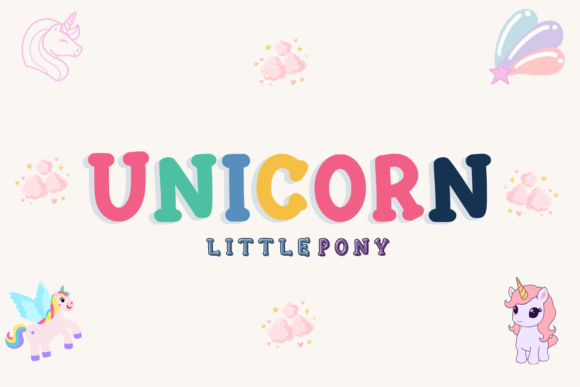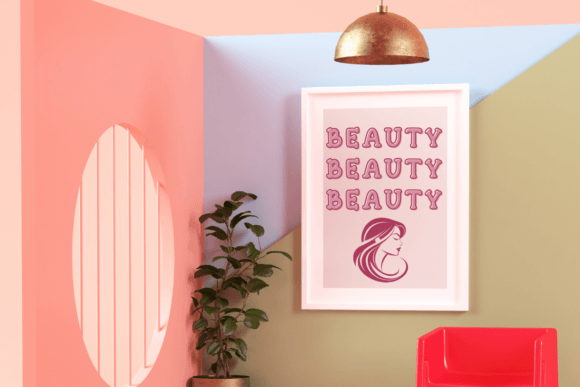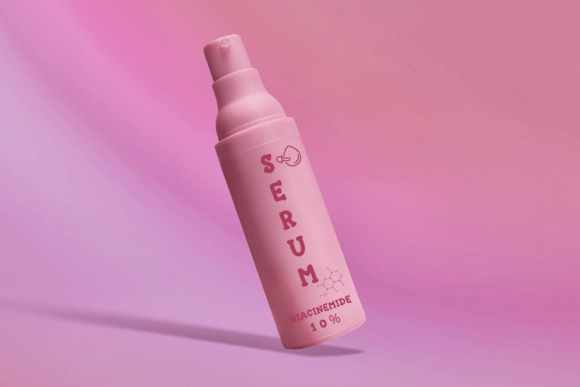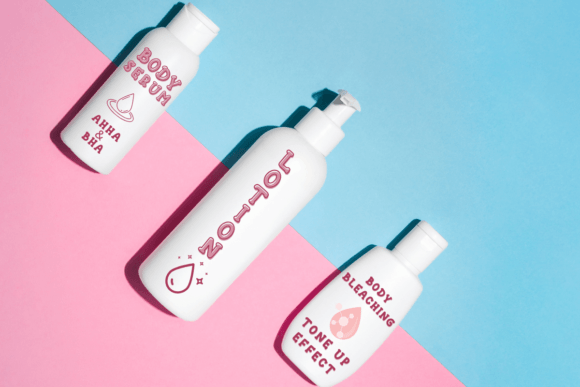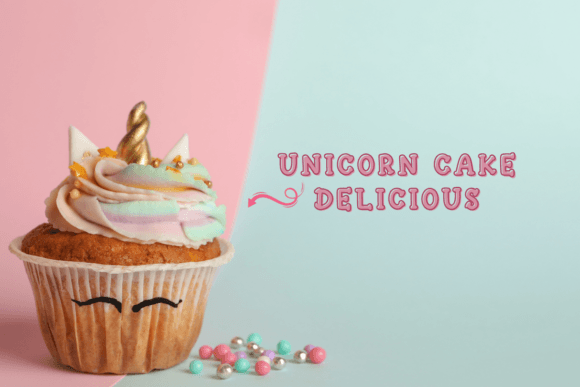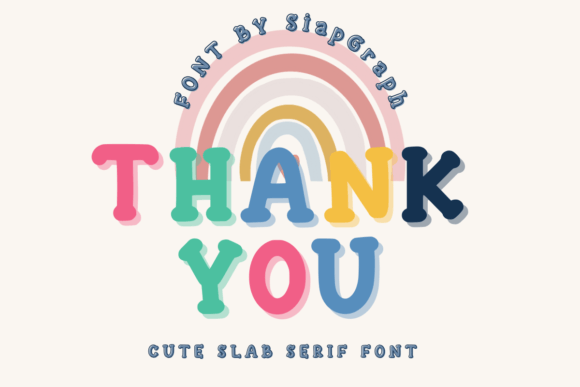
Introducing February Font: The Cute and Playful Slab Serif Font for Creative Crafts
Are you a designer or crafter looking for a font that can add a touch of playfulness and creativity to your projects? Look no further than February Font, a cute and charming slab serif font that’s perfect for a wide range of applications. In this article, we’ll take a closer look at February Font, its features, and how you can use it to elevate your creative craft needs.
What is February Font?
February Font is a slab serif font that’s designed to be both visually appealing and highly versatile. Its unique blend of rounded edges and sturdy serifs gives it a distinctive look that’s both modern and nostalgic. Whether you’re working on a craft project, designing a logo, or creating social media graphics, February Font is the perfect choice.
Key Features of February Font
So, what makes February Font so special? Here are just a few of its key features:
- Cute and Playful Design: February Font has a distinctly playful vibe that’s perfect for crafty projects, DIY tutorials, and other creative endeavors.
- Slab Serif Style: The font’s slab serif design gives it a sturdy, dependable feel that’s balanced by its rounded edges.
- Highly Versatile: February Font can be used for a wide range of applications, from logos and branding to social media graphics and craft tutorials.
- Easy to Read: Despite its playful design, February Font is highly legible, making it perfect for use in body text and other applications where readability is key.
How to Use February Font in Your Creative Projects
February Font is an incredibly versatile font that can be used in a wide range of creative projects. Here are just a few ideas to get you started:
- Craft Tutorials: Use February Font to add a playful touch to your craft tutorials, DIY guides, and other creative projects.
- Logo Design: February Font’s unique design makes it perfect for use in logos and branding, especially for businesses that want to convey a playful, approachable vibe.
- Social Media Graphics: Add a touch of personality to your social media graphics with February Font, which can be used to create eye-catching headlines, quotes, and other graphics.
- Stationery and Invitations: Use February Font to create custom stationery, invitations, and other paper goods that are sure to impress.
Tips for Getting the Most Out of February Font
To get the most out of February Font, here are a few tips to keep in mind:
- Experiment with Colors: February Font looks great in a wide range of colors, so don’t be afraid to experiment and find the perfect hue for your project.
- Mix and Match with Other Fonts: February Font pairs well with a wide range of other fonts, so feel free to get creative and try out different combinations.
- Use it for Headlines and Titles: February Font’s playful design makes it perfect for use in headlines and titles, where it can add a touch of personality and flair.
February Font is a unique and versatile font that’s perfect for designers and crafters who want to add a touch of playfulness and creativity to their projects. With its cute and playful design, slab serif style, and highly legible letterforms, February Font is the perfect choice for a wide range of applications. Whether you’re working on a craft tutorial, designing a logo, or creating social media graphics, February Font is sure to become a favorite in your font collection.